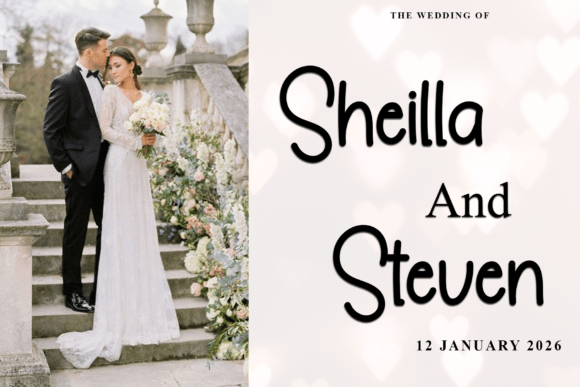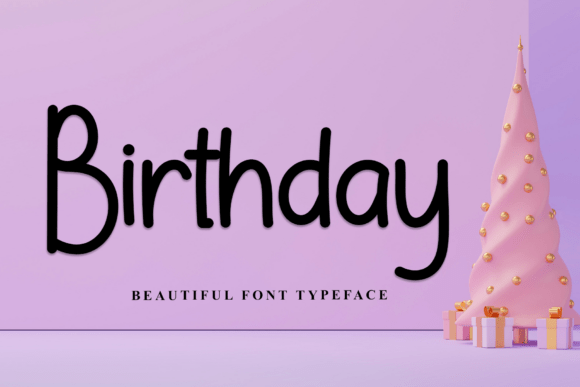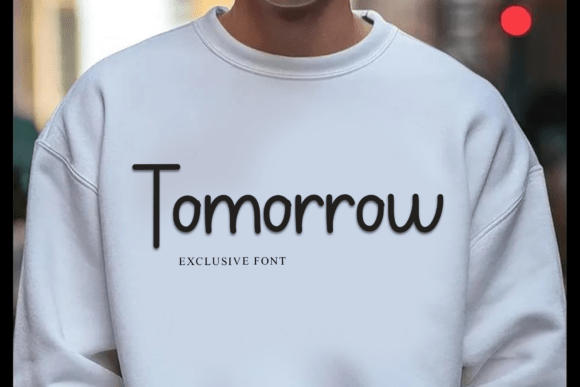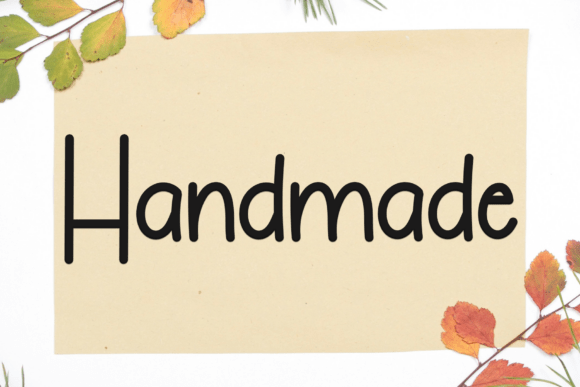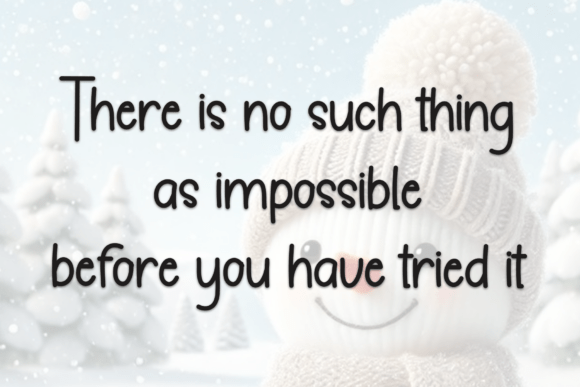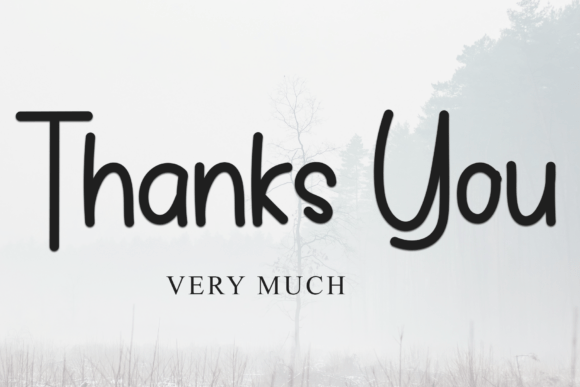
Adding a Dash of Whimsy to Your Designs
Have you ever stared at a blank page, trying to come up with the perfect font to match the tone of your project? It’s a feeling many designers know all too well. But what if you could capture the essence of a warm smile and convey it through the very letters you write?
Enter the Bunny Smile Font, a delightful and playful typeface designed to bring a sense of friendliness and approachability to your designs. This charming font is perfect for personal projects, invitations, and social media graphics, where a relaxed and casual vibe is essential. With its round, hand-drawn aesthetic and standard PUA Encoded glyphs, the Bunny Smile Font is a valuable addition to any designer’s toolkit, allowing for seamless use across various applications like Adobe Photoshop, Corel, and Canva.
Bunny Smile Font Key Features
- Unique Characteristics: The Bunny Smile Font features a playful, hand-drawn design with a mix of rounded and angular elements. It includes a wide range of glyphs, including Latin, Cyrillic, and Greek alphabets, as well as punctuation and special characters.
- Font Weight and Style: The font includes multiple weights and styles, including Light, Regular, Bold, and Italic, allowing users to customize the look and feel of their text.
Bunny Smile Font Review
As a designer, I’ve had the chance to work with the “Bunny Smile Font” and I must say it’s an interesting choice. Here are my thoughts on what works and what doesn’t.
- The font’s playful, whimsical feel is perfect for creating a lighthearted atmosphere. It’s ideal for children’s books, cartoons, and other projects that need a touch of fun.
- The font is highly customizable, allowing for easy adjustments to size, color, and style.
- The character set is extensive, including a wide range of symbols and glyphs that can add a lot of personality to your designs.
- The font may not be suitable for formal or professional projects, as its playful nature can come across as unprofessional.
- The font can be difficult to read in certain contexts, particularly at small sizes or in bold weights.
While the “Bunny Smile Font” has its limitations, I appreciate its unique charm and versatility. It’s a great choice for designers who want to add a playful touch to their projects, but may not be the best fit for more serious or formal work.
The Bunny Smile Font is ideal for adding a playful and whimsical touch to your designs. Common use cases include:
- Playful social media graphics and ads.
Remember to experiment with different font sizes, colors, and styles to get the most out of the Bunny Smile Font.